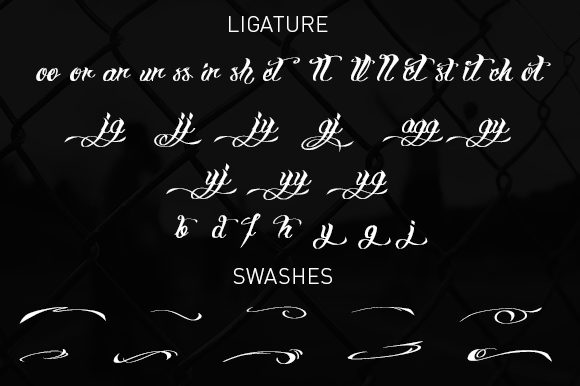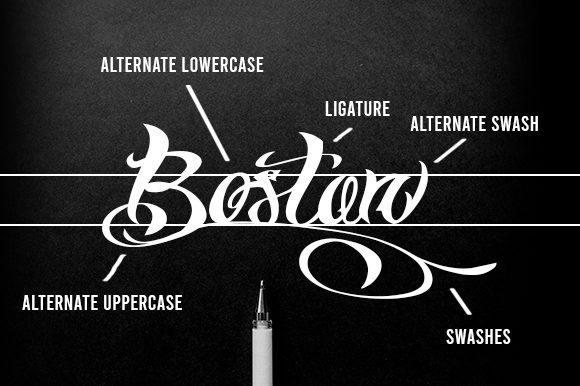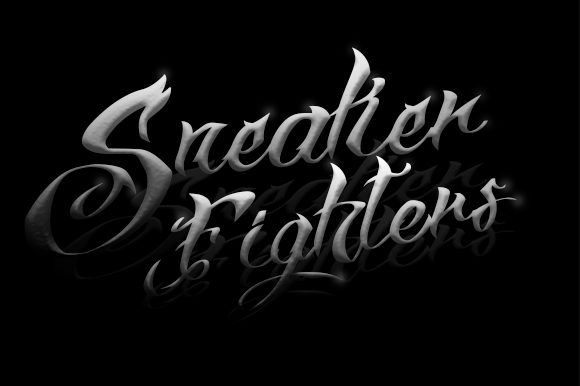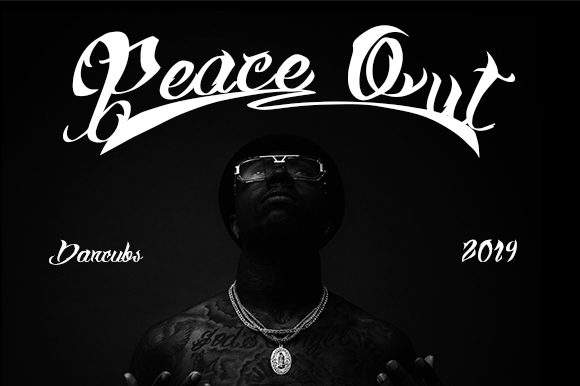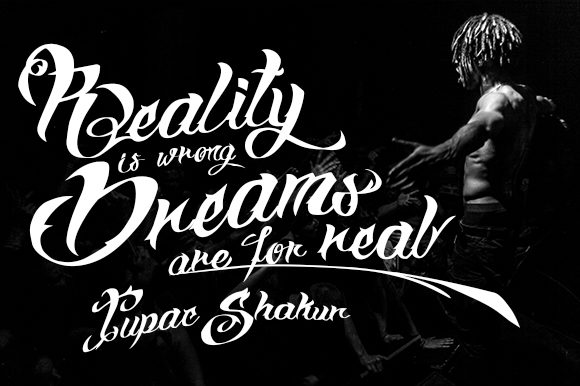
Seatlers Font
About Seatlers Font
Seatlers is a unique handwritten font. It features a strong and vintage feel. It will elevate a wide range of design projects to the highest level, be it branding, headings, wedding designs, invitations, signatures, logos, labels, and much more!